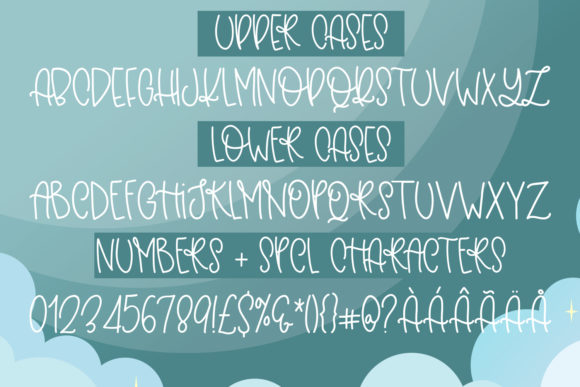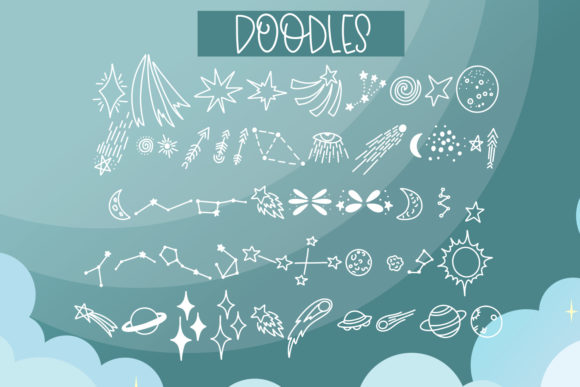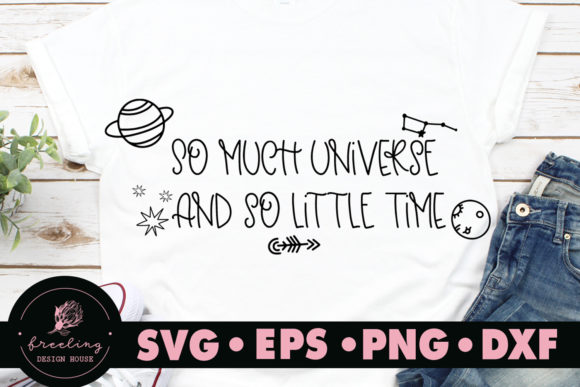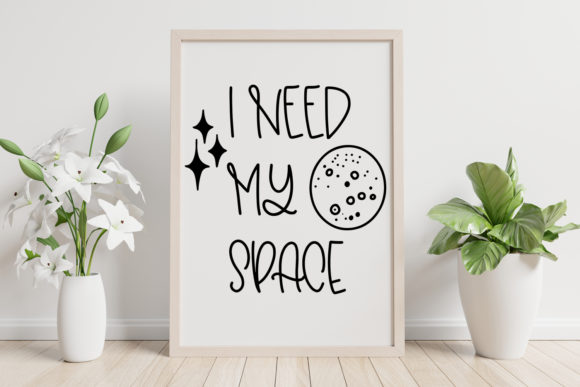
Introduction to Observatory Font
Observatory is a cute and quirky handwritten font.
It embodies fun and authenticity and is the perfect choice for any school or kids project .
Key Features of Observatory Font
Why Choose Observatory Font?